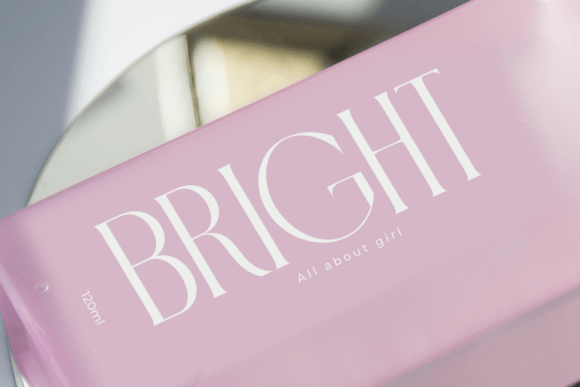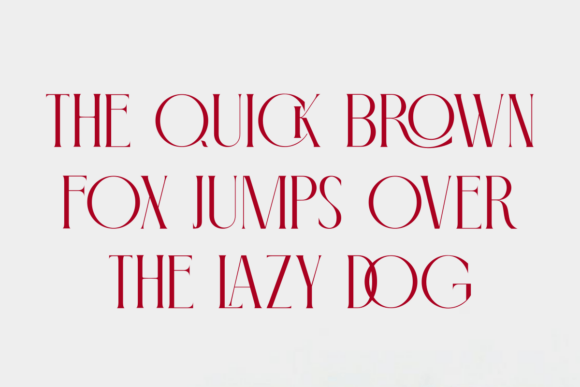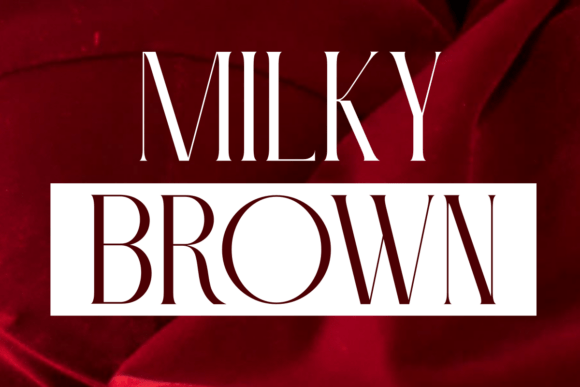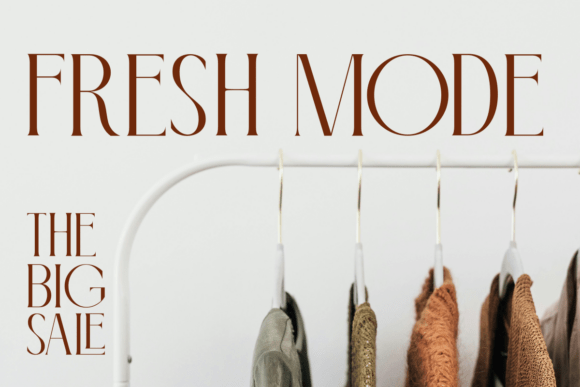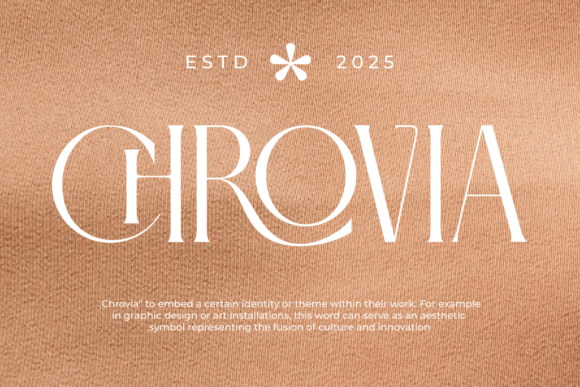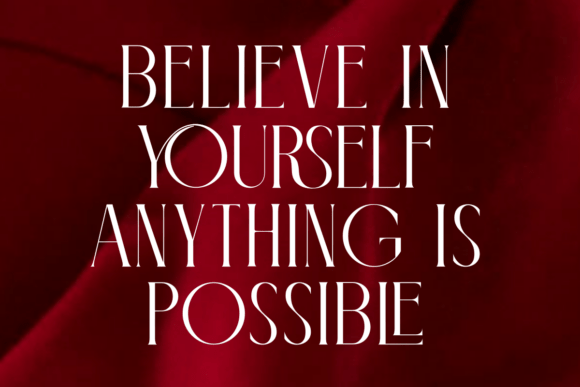
The Perfect Touch of Elegance: Introducing Glasvia Font
Have you ever been stuck on a design project, trying to find that perfect balance between sophistication and elegance? You know, that moment when you want to convey luxury and refinement without coming across as stuffy or over-the-top? I’ve been there, and I’m sure many designers have too.
That’s where the Glasvia Font comes in – a beautiful, light serif font that brings a touch of class to any design. With smooth letterforms and balanced contrast, Glasvia is the perfect choice for branding, editorial layouts, and luxury packaging that needs to exude sophistication without being too heavy-handed. As a designer, you’ll appreciate the versatility and professionalism that Glasvia Font brings to your projects.
Glasvia Font Key Features
- Character Count: The Glasvia Font family includes a vast array of characters, including uppercase and lowercase letters, numerals, punctuation marks, and a range of special characters.
- Unique Characteristics: Glasvia Font features a unique blend of modern and vintage elements, with intricate details and ornaments that set it apart from other font styles.
Glasvia Font Review
I recently had the chance to work with the Glasvia Font, and I must say it’s a unique and interesting choice. Here are my thoughts on what works well and what doesn’t.
- ✨ Elegant and refined aesthetic: Glasvia Font has a distinct, high-end feel that’s perfect for luxury brands or sophisticated designs.
- ✨ Excellent legibility: Despite its elegant appearance, the font is remarkably easy to read, even at smaller font sizes.
- ✨ Unique character set: Glasvia Font offers a range of creative characters and symbols that can add an extra layer of visual interest to your designs.
- ⚠️ Limited font sizes: While the font looks great at larger sizes, it can become somewhat distorted at smaller sizes, which may limit its use in certain contexts.
- ⚠️ Limited language support: Glasvia Font may not be optimized for languages that require more complex character sets, which could be a limitation for international projects.
Glasvia Font is a solid choice for designers who want to create high-end, elegant designs. While it may have some limitations, its unique aesthetic and excellent legibility make it a worthwhile consideration for the right projects. Just be aware of its limitations and adjust your design accordingly.
Some tips for getting the most out of the Glasvia Font include:
- Using the font in conjunction with bold and italic text to create visual interest.
- Applying the font to headings and titles to create a consistent visual brand.
- Using the font in digital and print materials to create a cohesive brand identity.
Common use cases for the Glasvia Font include:
- Business cards and letterheads.
- Branding materials such as logos and brochures.